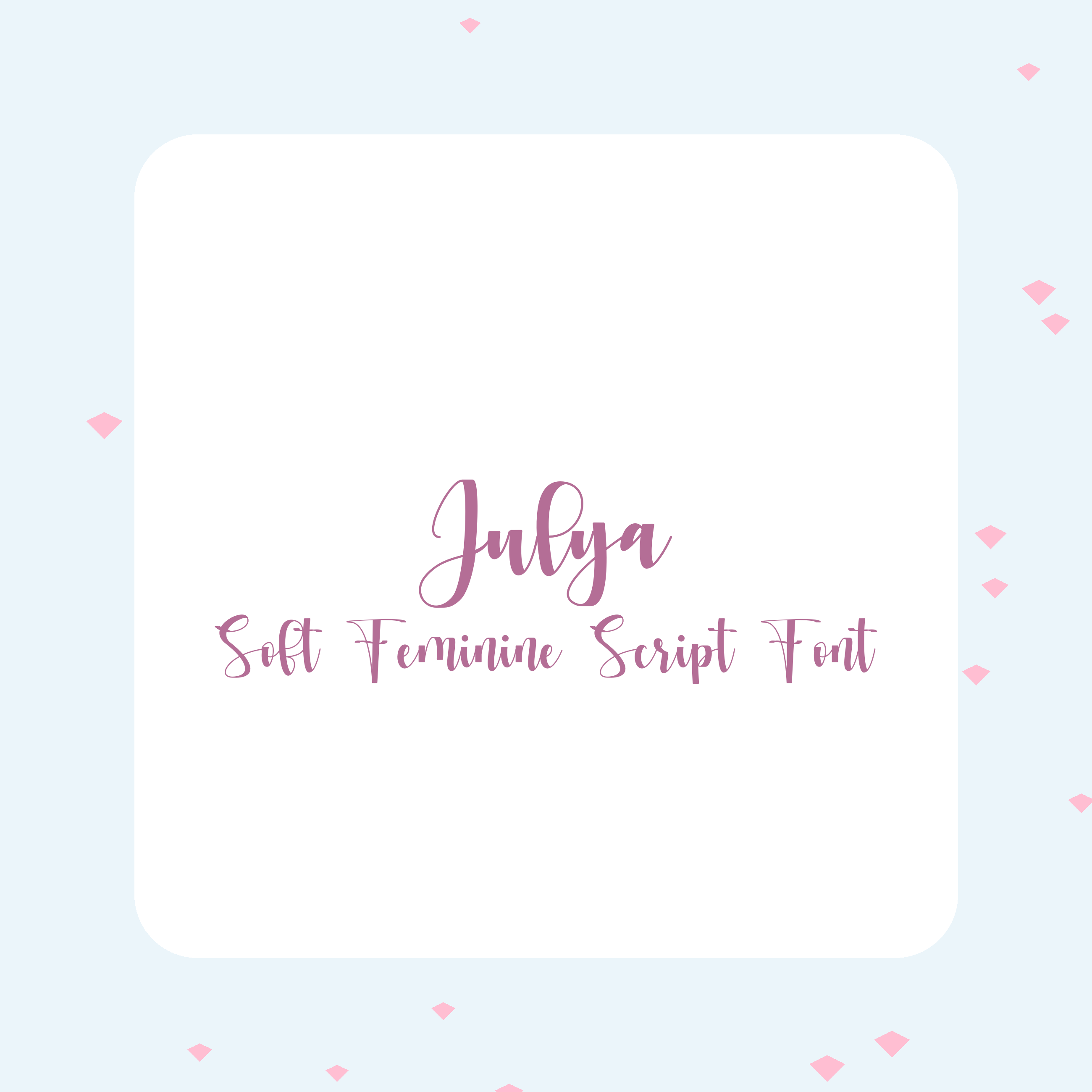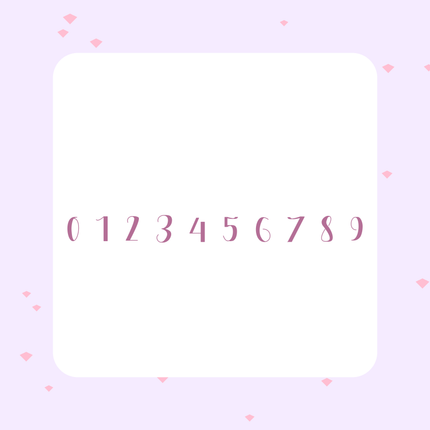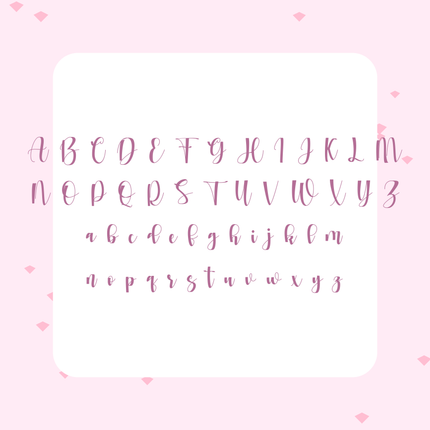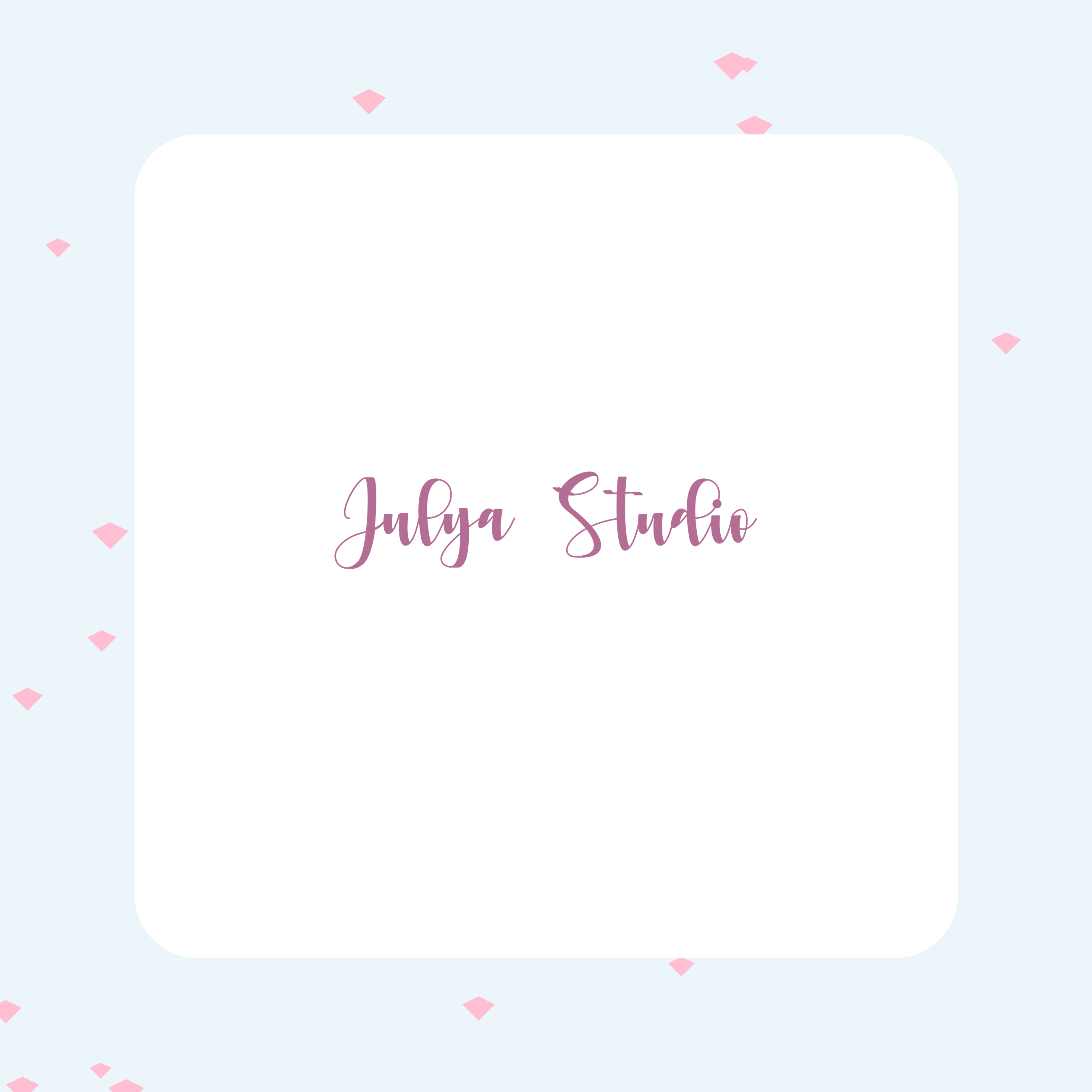
Julya Feminine Script Font | Cute Cricut Font | Romantic Handwritten Branding Font
💕 Julya is a soft, feminine handwritten script font with a romantic and gentle feel. Designed with smooth curves and extra-large lettering, this font is perfect for Cricut projects, stickers, invitations, and elegant designs.
✨ Soft, flowing lettering
✨ Extra-large and easy to read
✨ Perfect for romantic & feminine projects